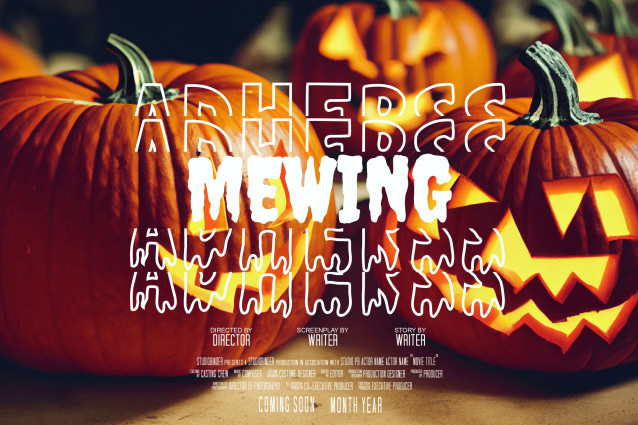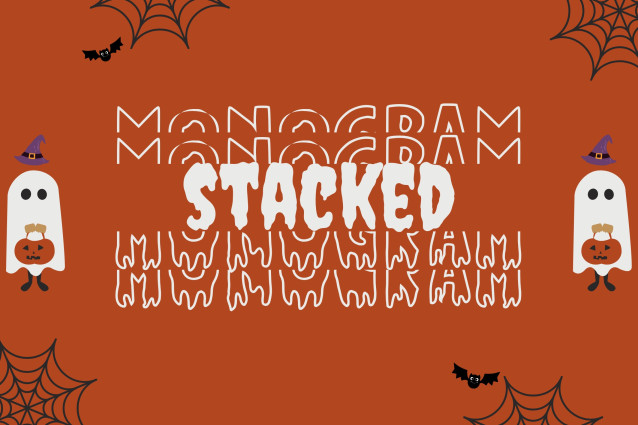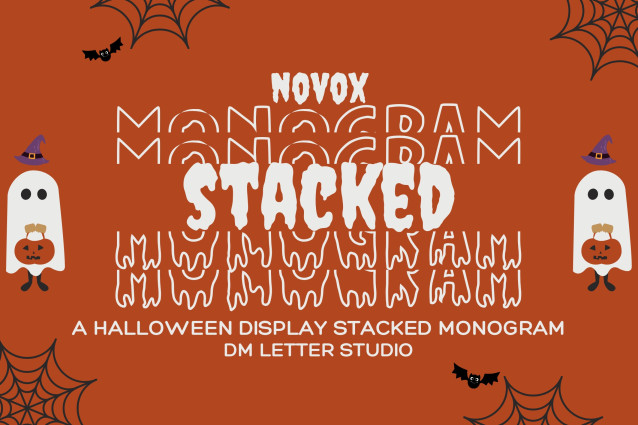
Novox Ghost Stacked Monogram Font
Novox Ghost Stacked Monogram brings an eerie twist to traditional monograms with bold, layered letters haunted by spectral flair. Designed for those who love spooky aesthetics with a structured, symmetrical style, this font is ideal for Halloween crafts, haunted house décor, creepy mugs, or ghost-themed monogrammed gifts. The stacked format gives each letter combination a unique, blocky presence that still feels ghostly and fun.